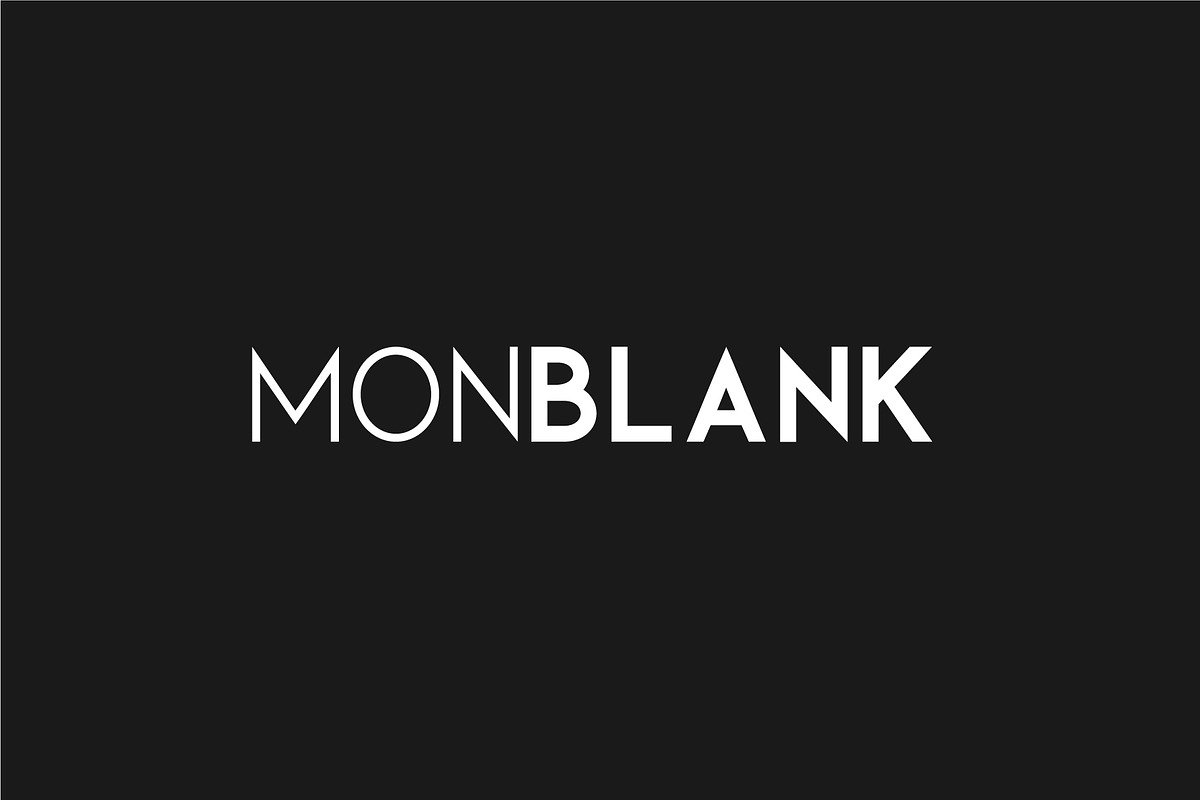
Monblank. Sans serif family
Sharp corners ideal curves and strict lines - it all fits in the font Monblank. Use this font if your product is created taking into account the current fashion tendencies - font will help to emphasize the trend in your product. Excellent looks and reads in large texts and articles is not lost in solitary inscriptions and is very self-sufficient in logos in the style of minimalism and modernity. Use it in branding, in printing products, etc.
- 6 fonts in family
- UPPERCASE and lowercase letters
- Numbers & basic Punctuation
- Sans-Serif Typeface
- Regular and Italic font style
- Bold and Bold italic font style
- Light and Light italic font style
- Strict style and sharp corners